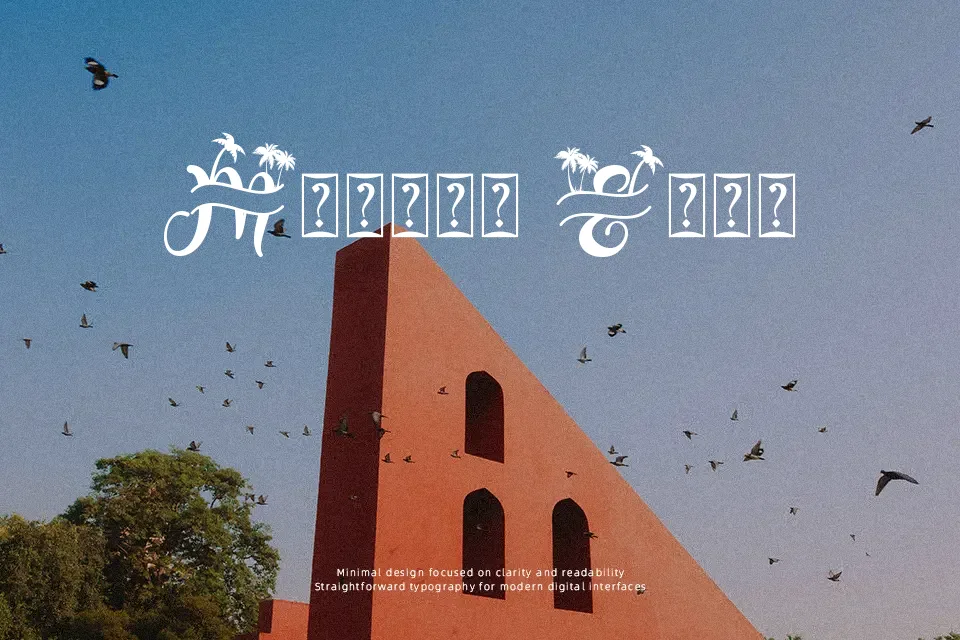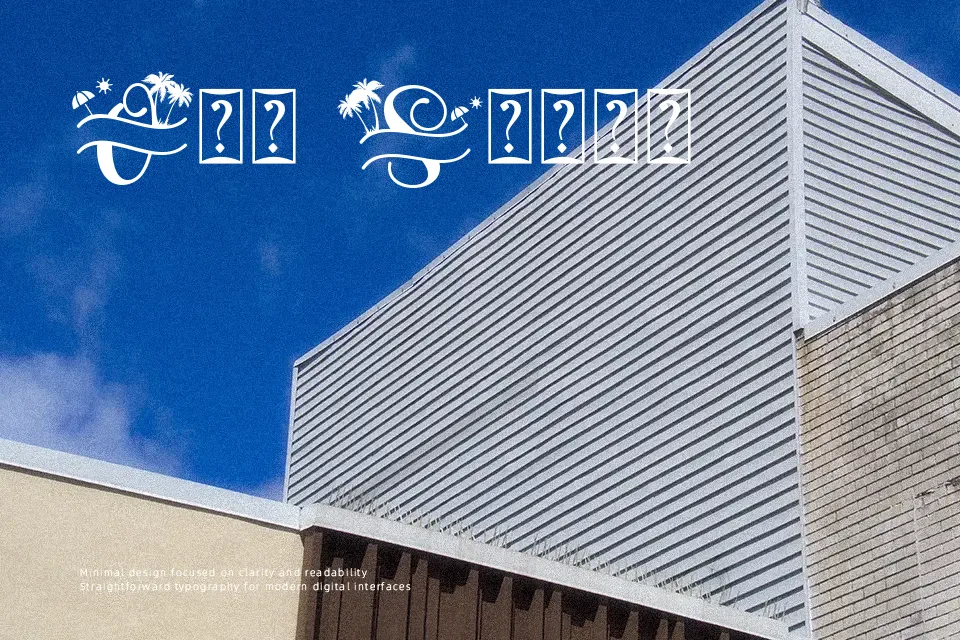
Summer Monogram Font
Summer Monogram Font combines bold decorative capitals with ornate scenic illustrations that fill the internal counters and surrounding contours of each glyph. The letterforms exhibit medium stroke contrast, generous outer bounding boxes, and wide standalone spacing to accommodate botanical branches and seaside motifs. These distinct illustrative flourishes provide strong graphic impact for vacation apparel, monogrammed gift items, and summer greeting cards. However, the intricate internal details become cluttered at reduced sizes, making the typeface unsuited for body paragraphs or compact digital interface labels. The ornate embellishments maintain excellent visual clarity when rendered in prominent single-letter focal points across large physical prints.
– summer apparel graphics
– resort merchandise packaging
– tropical wedding invitations
– monogrammed gift stationery
– continuous body text
– dense editorial paragraphs
– small user interface labels
– spreadsheet and tabular data
Perfect for branding, headline, and invitation, with a artistic and decorative style.